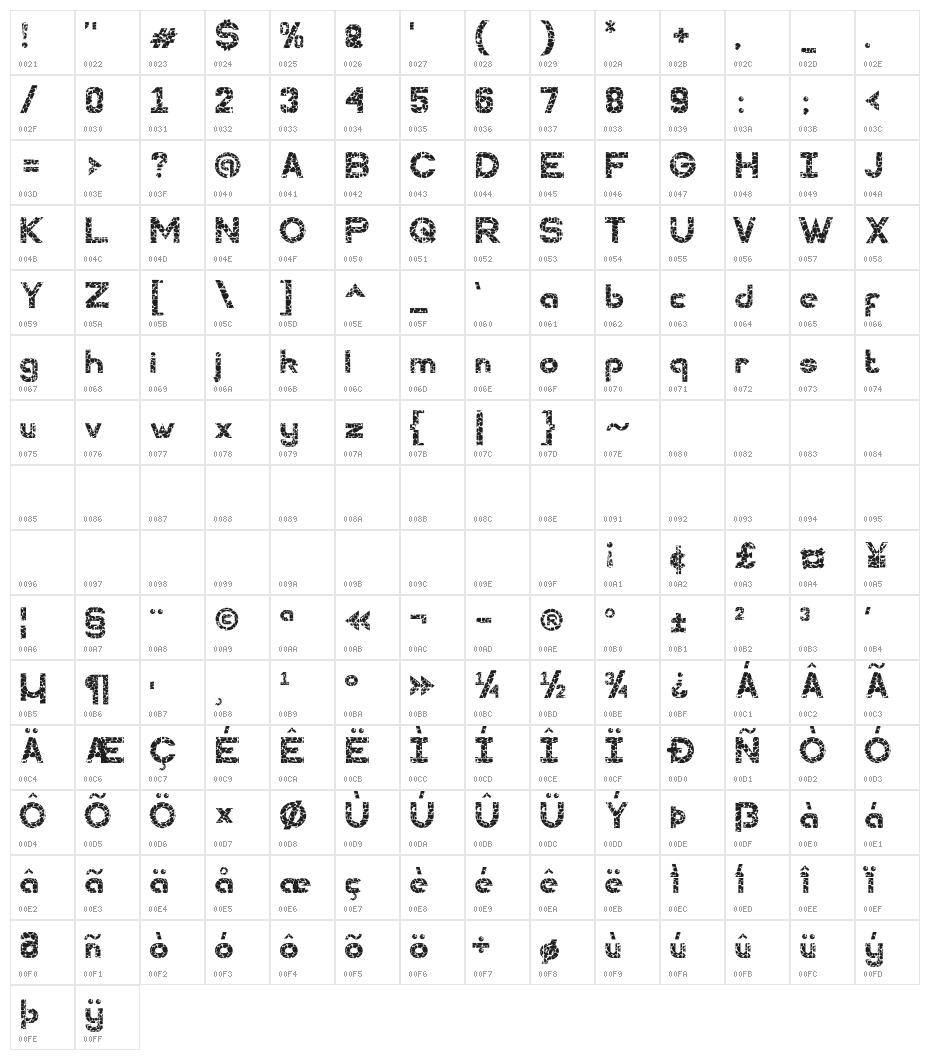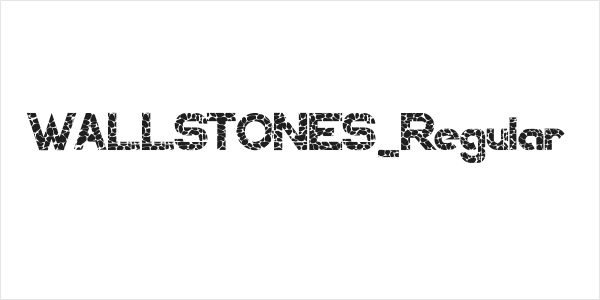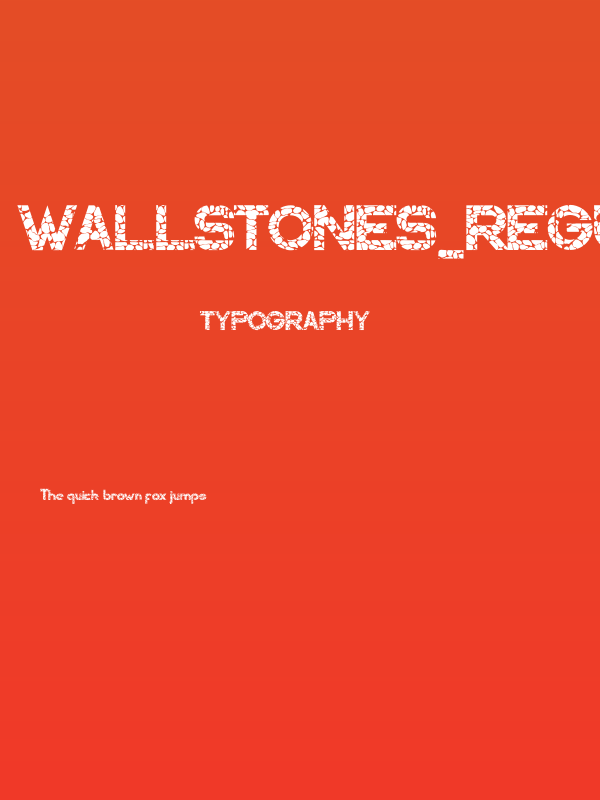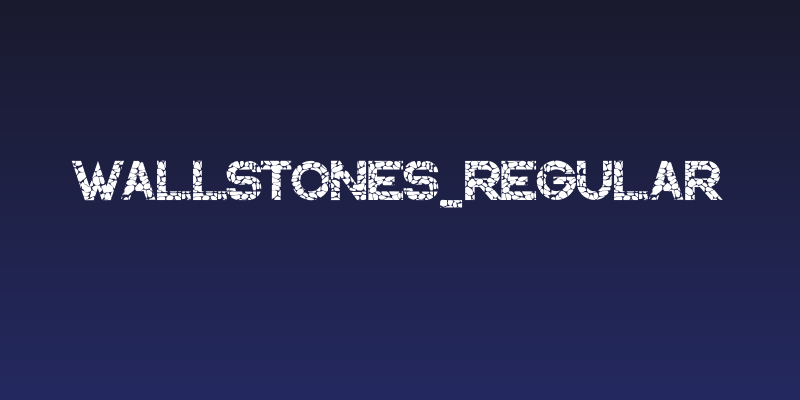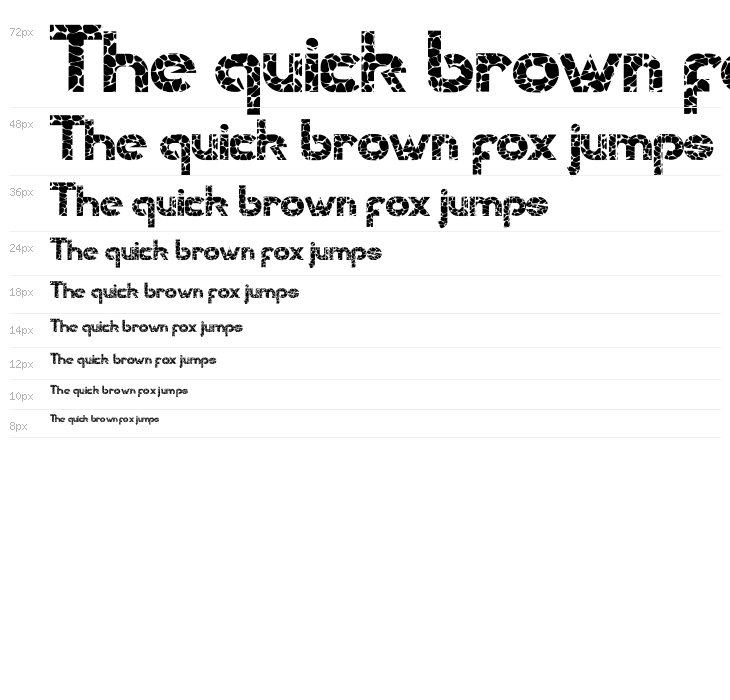
WALLSTONES-Regular Font
WALLSTONES-Regular Description
This font features a unique, textured design reminiscent of cracked stone or mosaic patterns. Each character is filled with irregular, jagged shapes that create a visually striking effect. The uppercase and lowercase letters maintain a consistent style, with bold, geometric forms that are both modern and artistic. Numbers and special characters follow the same design principles, ensuring uniformity across all glyphs. The font's distinct appearance makes it ideal for projects that require a bold, eye-catching aesthetic.
| Proposed Projects | Ideal for posters, album covers, branding, and any project needing a bold, artistic touch. |